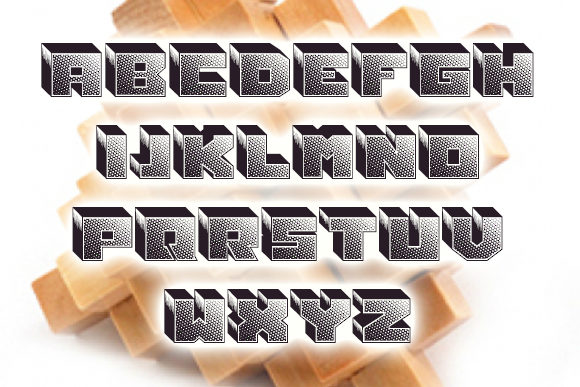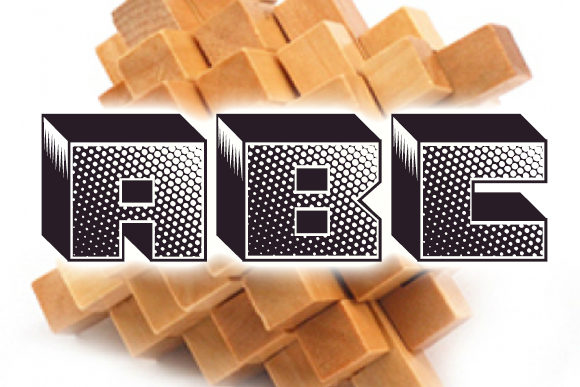
Introduction to Shiny Blocks Font
You know that feeling when you’re working on a creative project, and you need just the right font to bring it all together? For designers, the perfect font can be the difference between a good design and a great one. And that’s exactly what we’re excited to introduce you to today – the stunning Shiny Blocks Font.
With its thick lettered, bold 3D display style, the Shiny Blocks Font is sure to make your banners, posters, and prints stand out. Whether you’re working on a high-end design project or just want to add some flair to a social media graphic, this font is a game-changer. And the best part? It’s available for free download, so you can get creative without breaking the bank.
As a valuable design resource, the Shiny Blocks Font is perfect for designers who want to add some extra oomph to their work. Plus, with its transparent background option, you can easily layer it over any image or background to create a truly unique look.
Key Features of Shiny Blocks Font
- High-quality design resource with a unique, futuristic aesthetic, perfect for creative projects that require a modern touch.
- Features a transparent background, allowing for seamless integration with any design element or background image.
- Includes a range of stylish and modern block-style characters, ideal for use in logos, headings, and other prominent design elements.
- Designed to be highly legible at various resolutions, including high-resolution displays, ensuring that your design looks great on any device.
Honest Review: Shiny Blocks Font
I recently stumbled upon the Shiny Blocks Font and was intrigued by its unique style. As a designer, I’m always on the lookout for high-quality design resources that can elevate my creative projects. The Shiny Blocks Font definitely fits the bill.
- ✨ The transparent background makes it easy to use in various design applications.
- ✨ The font’s unique style is perfect for adding a touch of whimsy to creative projects.
- ⚠️ The font may not be suitable for professional or corporate projects due to its playful style.
- ⚠️ The font is not as versatile as some other fonts on the market, making it better suited for specific design applications.
Overall, I’m impressed with the Shiny Blocks Font and would recommend it to designers working on creative projects. Its unique style and high-quality design make it a valuable resource for any design toolkit.
Tips for Getting the Most Out of Shiny Blocks Font
For the best results, use the Shiny Blocks Font on a transparent background to make it stand out. You can also experiment with different font sizes and colors to add visual interest to your design. Additionally, consider combining the Shiny Blocks Font with other design resources, such as graphics and images, to create a unique and eye-catching design.
The Shiny Blocks Font is a great resource for designers and creatives working on projects such as social media graphics, flyers, and posters. It’s also suitable for use in presentations and reports, as well as in digital products such as e-books and websites.